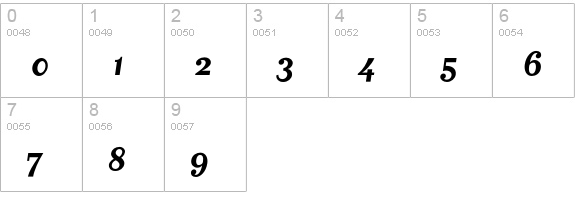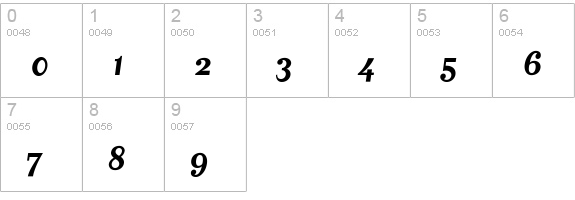
MatrixScriptBoldOldstyle Font Details
MatrixScriptBoldOldstyle is a bold and stylish font that brings a touch of elegance and sophistication to any design project. With its unique blend of classic and modern elements, this font is perfect for adding a touch of flair to your creative works. Its sleek lines and bold strokes make a strong statement, while its old-style charm adds a timeless appeal. The MatrixScriptBoldOldstyle font is ideal for a wide range of applications, from branding and advertising to invitations and social media graphics. Its versatility makes it a go-to choice for designers looking to make a bold impact with their typography. Best of all, the MatrixScriptBoldOldstyle font is available for free download at FontsMarket.com. This means you can easily access this stylish font and start using it in your projects without any cost. Don't miss out on this fantastic opportunity to add a touch of sophistication to your designs with the MatrixScriptBoldOldstyle font.